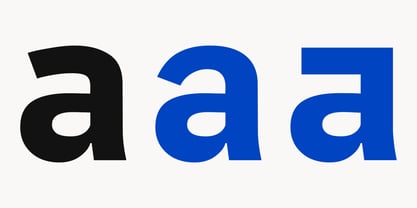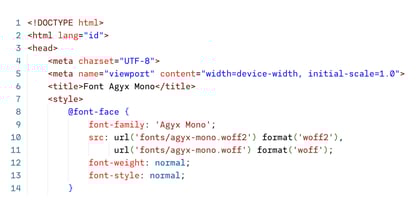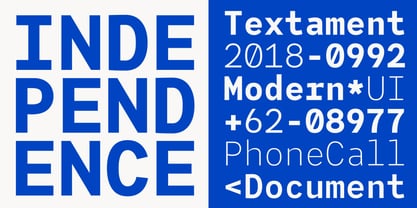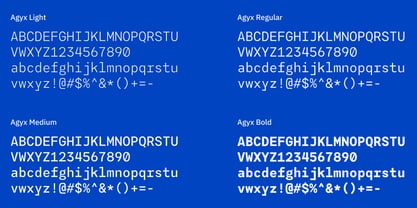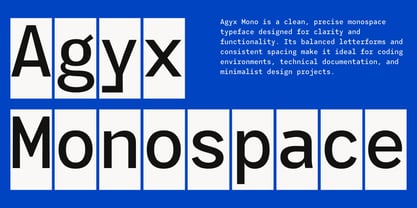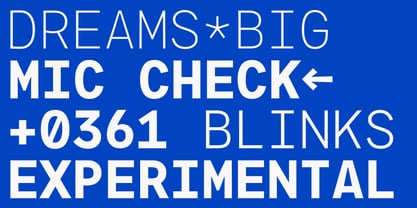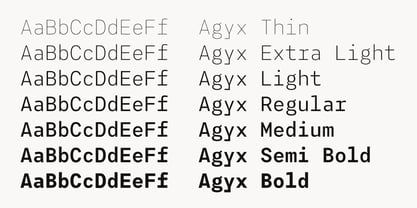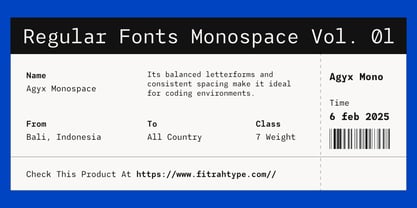
Agyx Mono
by Fitrah Type
The Agyx Mono Font Family was designed by Moch Fitrah Hidayat and published by Fitrah Type. Agyx Mono contains 7 styles and family package options.
Agyx Mono is a clean, precise monospace typeface designed for clarity and functionality. Its balanced letterforms and consistent spacing make it ideal for coding environments, technical documentation, and minimalist design projects. With a modern, streamlined aesthetic, Agyx Mono ensures optimal readability. With a subtle character and balanced proportions, Agyx Mono delivers clarity without sacrificing style.
Designers: Moch Fitrah Hidayat
Publisher: Fitrah Type
Foundry: Fitrah Type
Design Owner: Fitrah Type